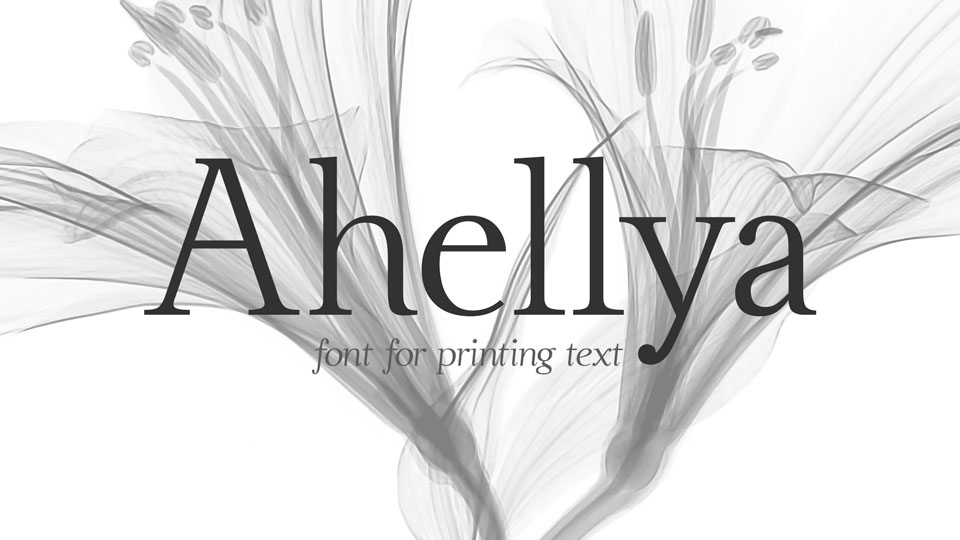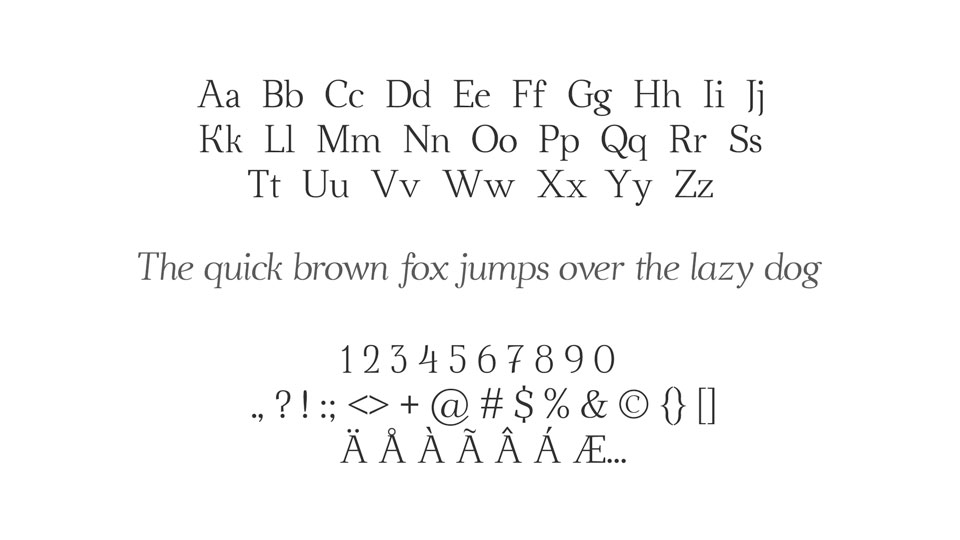
Ahellya is an elegant serif typeface for printing texts. It comes with Regular and Italic fonts, contains complete full set of glyphs, including extended language support.
Ahellya works great for texts, suitable for wedding and greeting designs, social media, magazines, books and more.